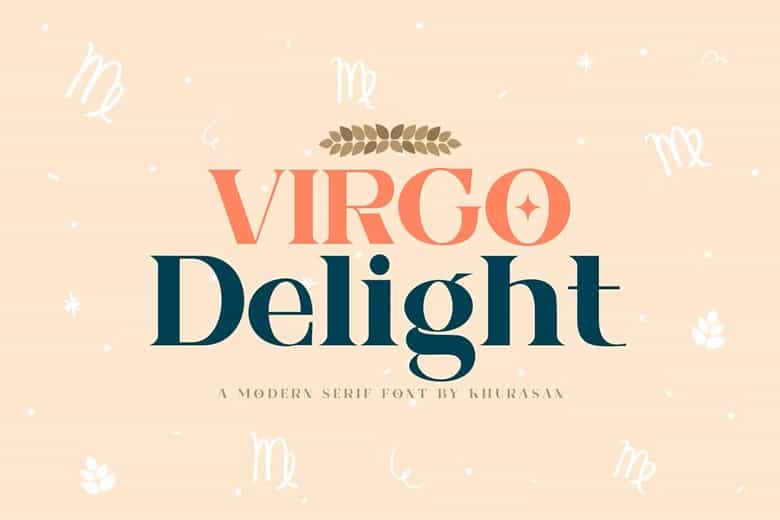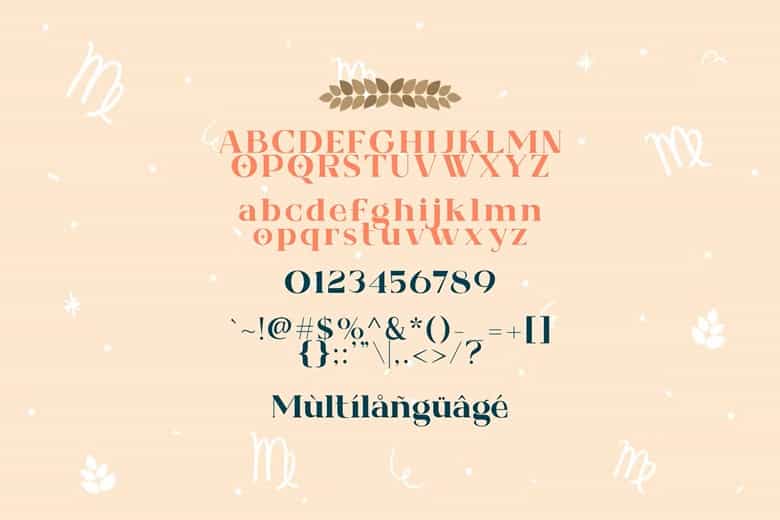
Virgo Delight is an elegant serif typeface. It is quite suitable for posters, logo, magazines, books, banners, and so on. This font should be obtained, and then it can be used to make such beautiful designs. It can find a match with such a huge number of projects, so include it into your creative ideas and see how they will turn out!